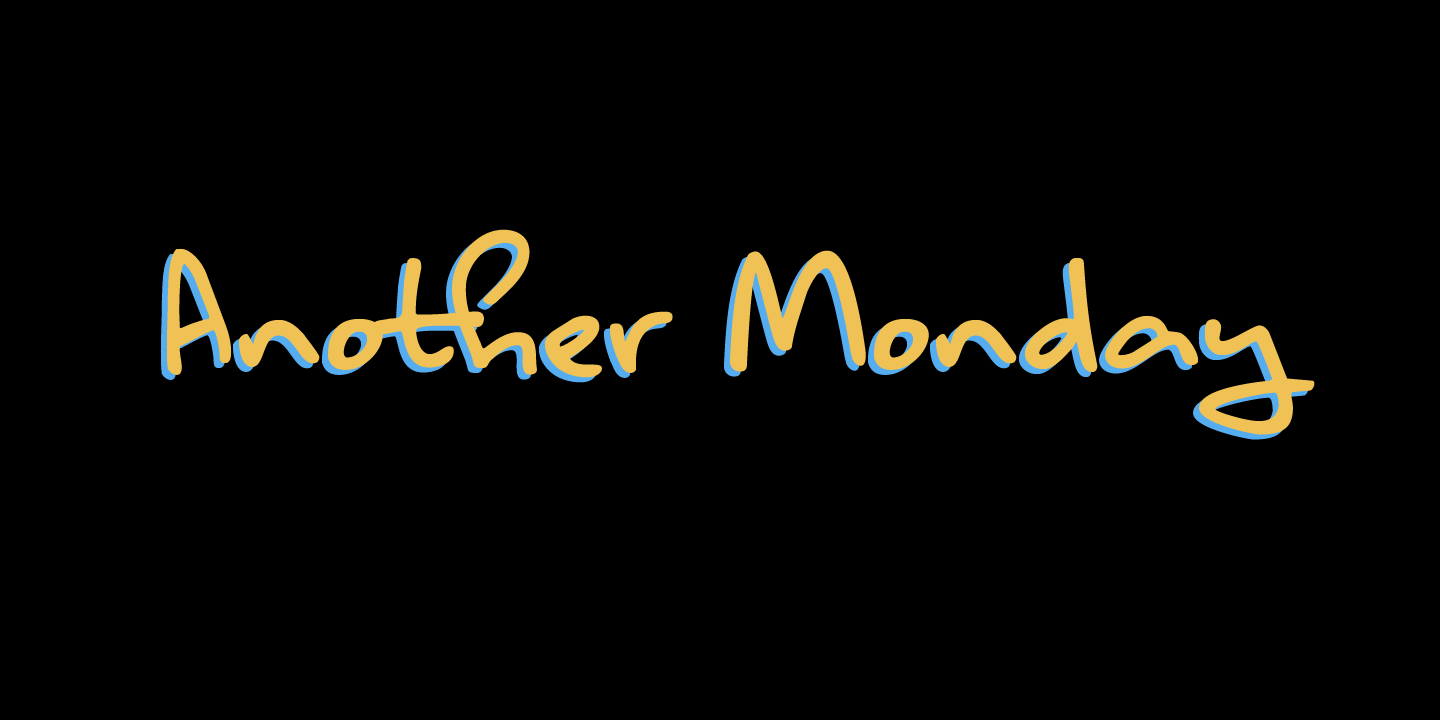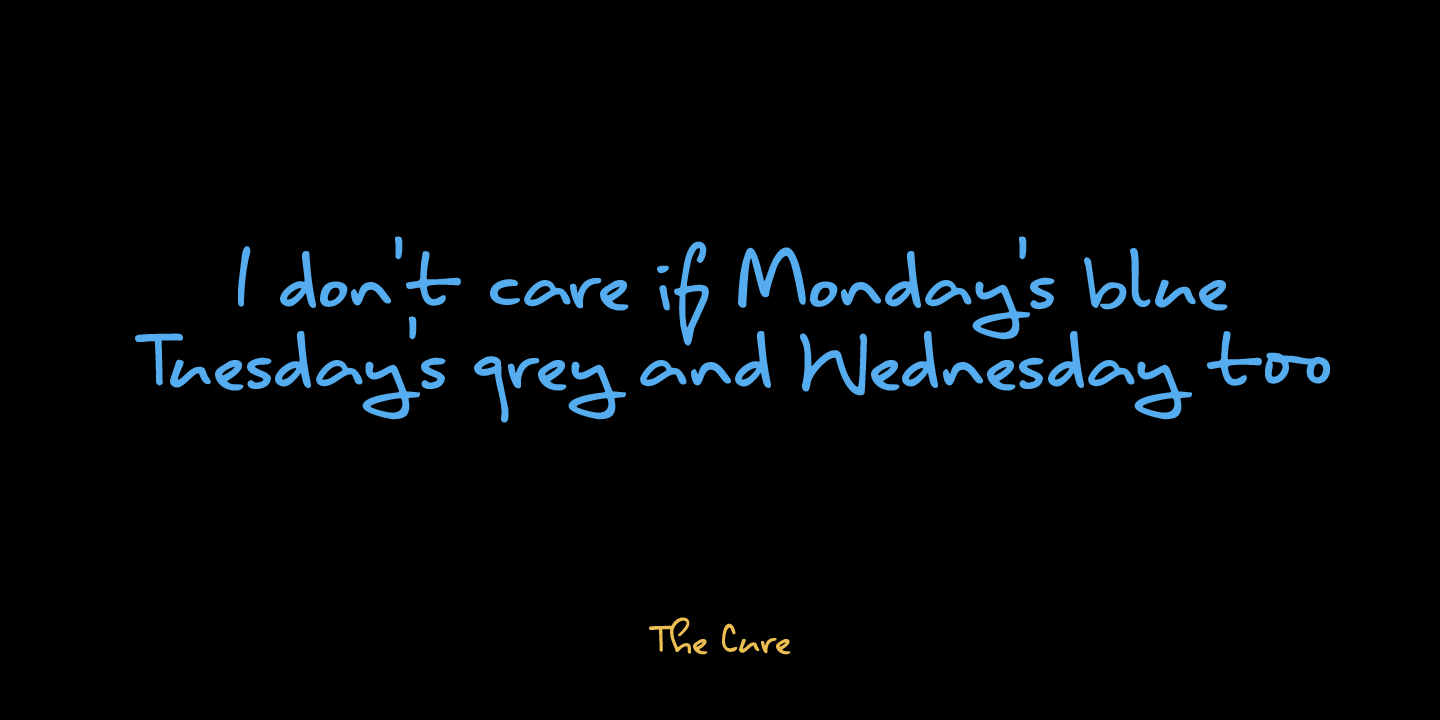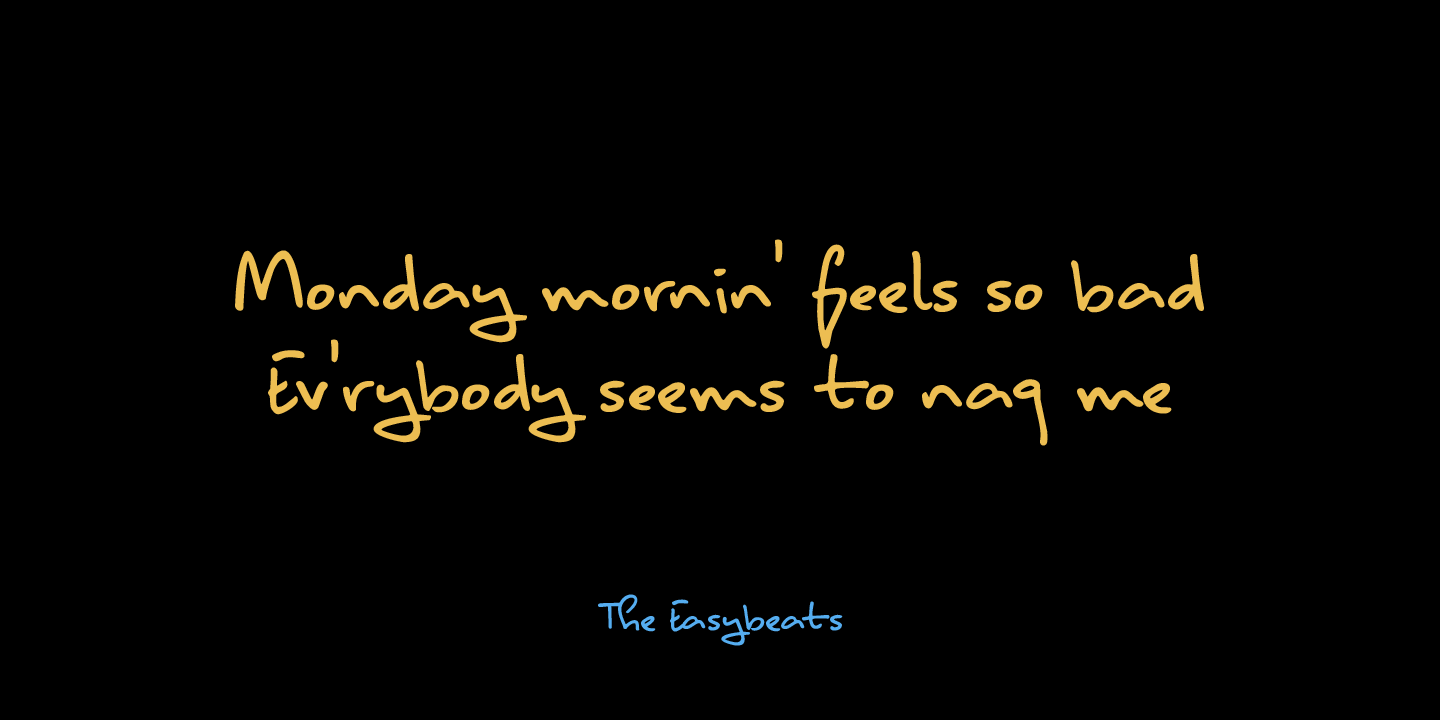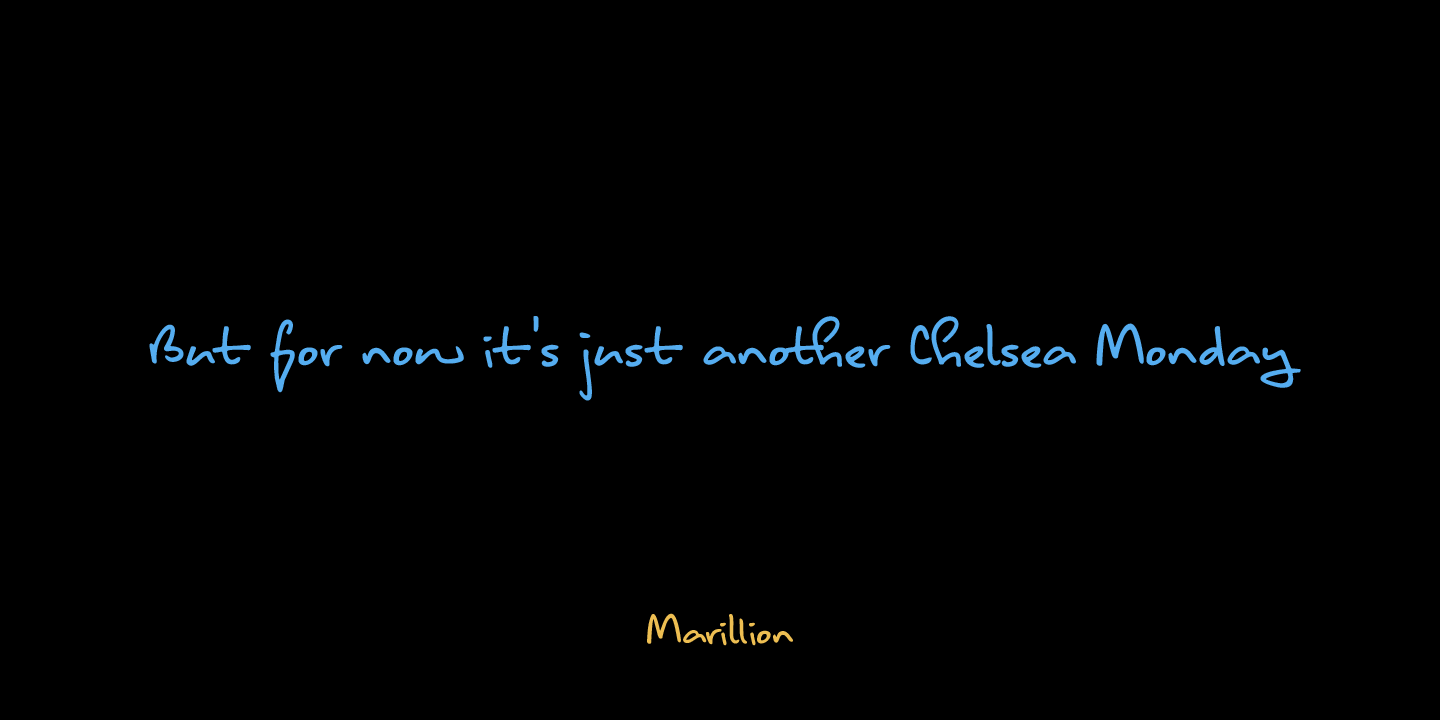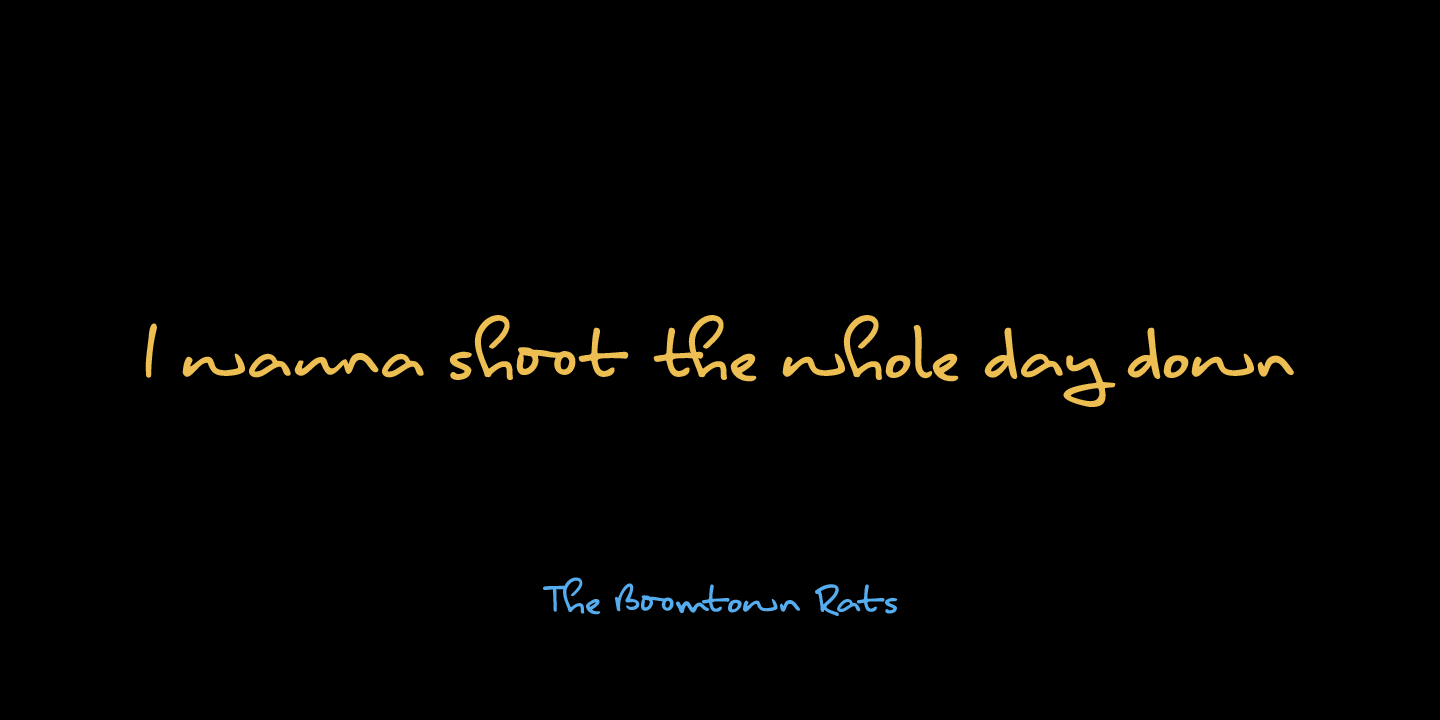
Another Monday
Font Family by Hanoded
I started this font on a Monday and I finished it the Monday after, so I guess the name is right!
Another Monday started off as a bit of doodling (with a Sharpie pen) on a piece of paper. Before I knew it, I had a complete glyph set and it looked nice. Another Monday is a bit messy, uneven and maybe even a little weird, but it will look good on postcards, packaging and labels.